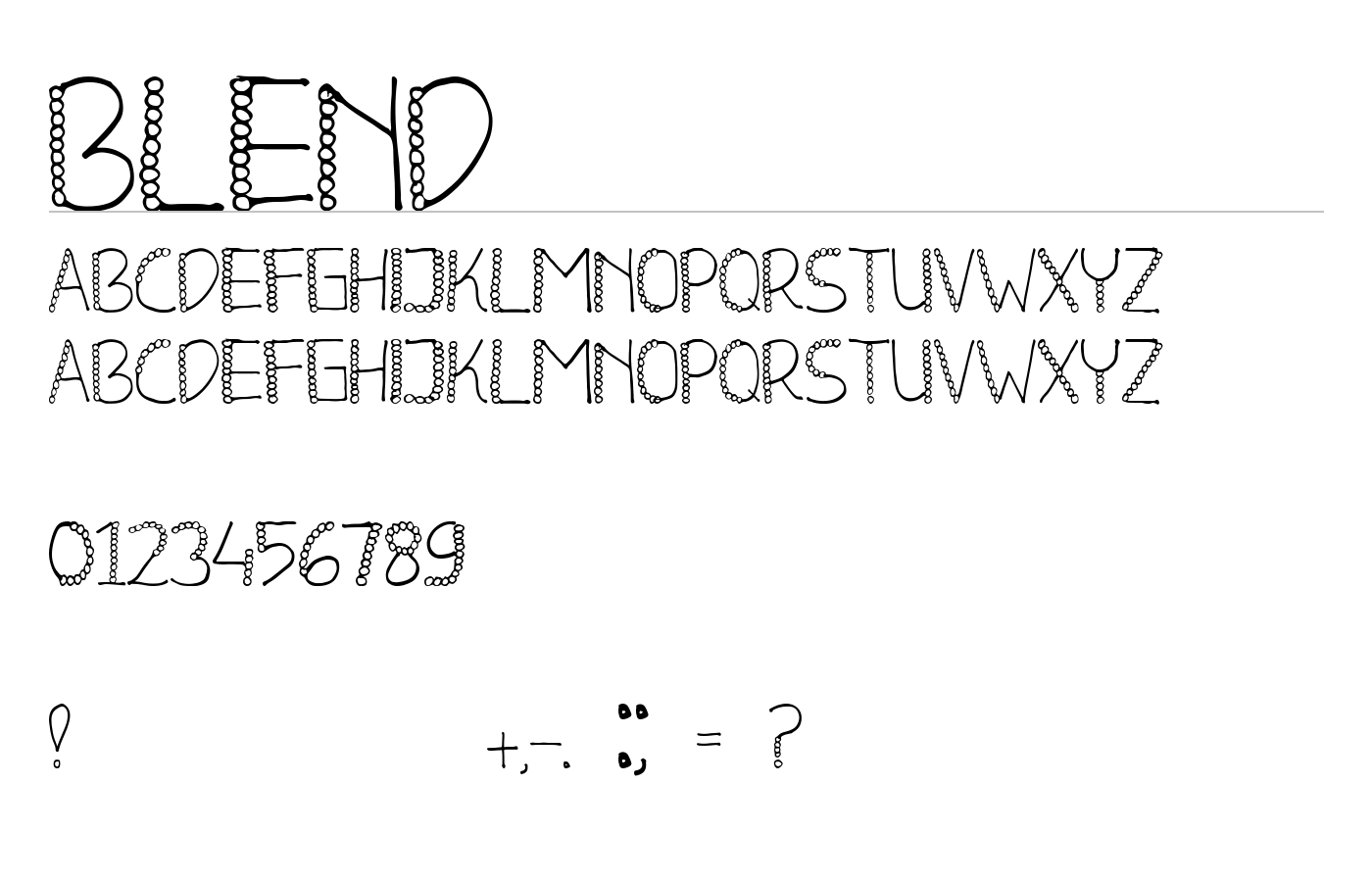
BLEND is a playful and whimsical sans serif display font characterized by its unique dotted stroke texture and tall, narrow letterforms. Its light weight and organic, hand-drawn style give it a casual, friendly feel, making it perfect for creative projects, children’s designs, and informal branding that seeks a charming, artistic vibe. This font shines best in headlines, logos, and decorative uses where its distinctive personality can stand out.
BLEND Font
About BLEND Font